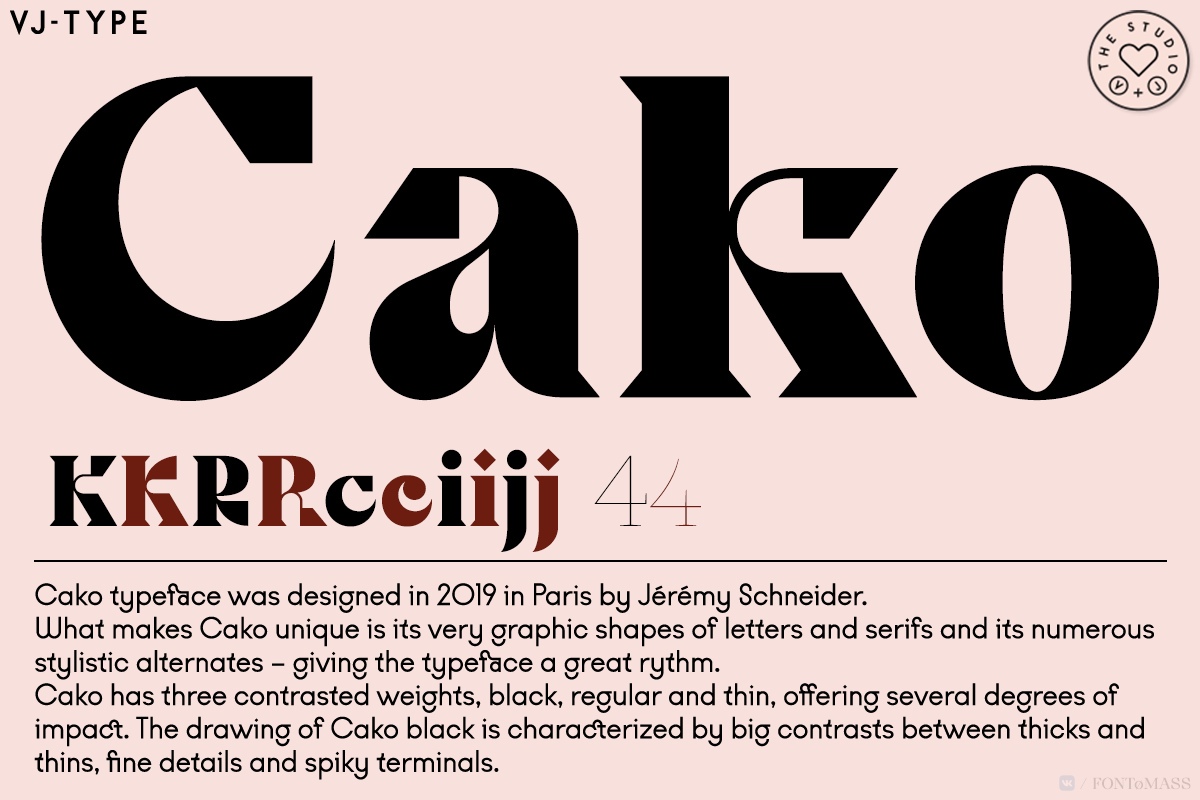
Cako Font
Cako Font is perfect for artisan bakery branding, specialty cake shop logos, confectionery boutique signage, custom dessert catering materials, wedding cake designer graphics, sweet treat packaging, bakery café menus, pastry chef portfolios, dessert festival posters, and gourmet cupcake company advertising. This delectable typeface excels in applications where confectionery artistry, sweet indulgence, and baking craftsmanship are fundamental brand characteristics.
What makes Cako Font exciting is its delicious embodiment of confectionery delight through letterforms that capture the sweet satisfaction and artisanal quality of handcrafted baked goods and custom cake creations. The font features rounded character construction with gentle curves and inviting proportions that immediately evoke the warmth of fresh-baked treats and the creative artistry of skilled pastry chefs. Its appetizing personality makes it perfect for brands that celebrate the intersection of culinary art and sweet indulgence, where traditional baking skills meet contemporary dessert innovation.
The Cako Font family typically includes Regular and Bold weights, often accompanied by decorative alternates with enhanced confectionery styling and sweet ligatures that reflect the flowing creativity of cake decoration and pastry artistry. Many versions include bakery-themed symbols including cake layers, mixing bowls, and decorative flourishes, plus complementary dingbats that enhance the sweet confectionery aesthetic. Some collections include outline variations and frosting-inspired effects that amplify the delicious bakery atmosphere for maximum appetizing appeal.
Whether you're developing brand identities for specialty bakeries, creating materials for custom cake services, or designing content that celebrates the artistry of confectionery craftsmanship, Cako Font Free Download provides the authentic sweet character that resonates with dessert lovers and clients seeking custom confectionery experiences. Its inviting presence makes it ideal for businesses focused on creating memorable celebrations through beautiful, delicious custom cakes and artisanal baked goods. The font's ability to convey both creative artistry and delicious quality makes it particularly valuable for custom cake designers, specialty bakeries, and confectionery artists seeking to attract customers who appreciate the skill, creativity, and passion that goes into creating truly exceptional sweet treats and celebration centerpieces.